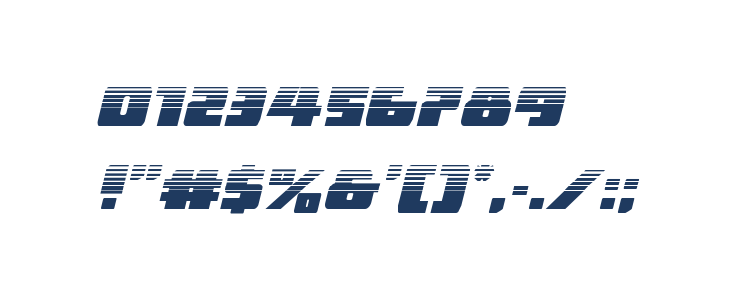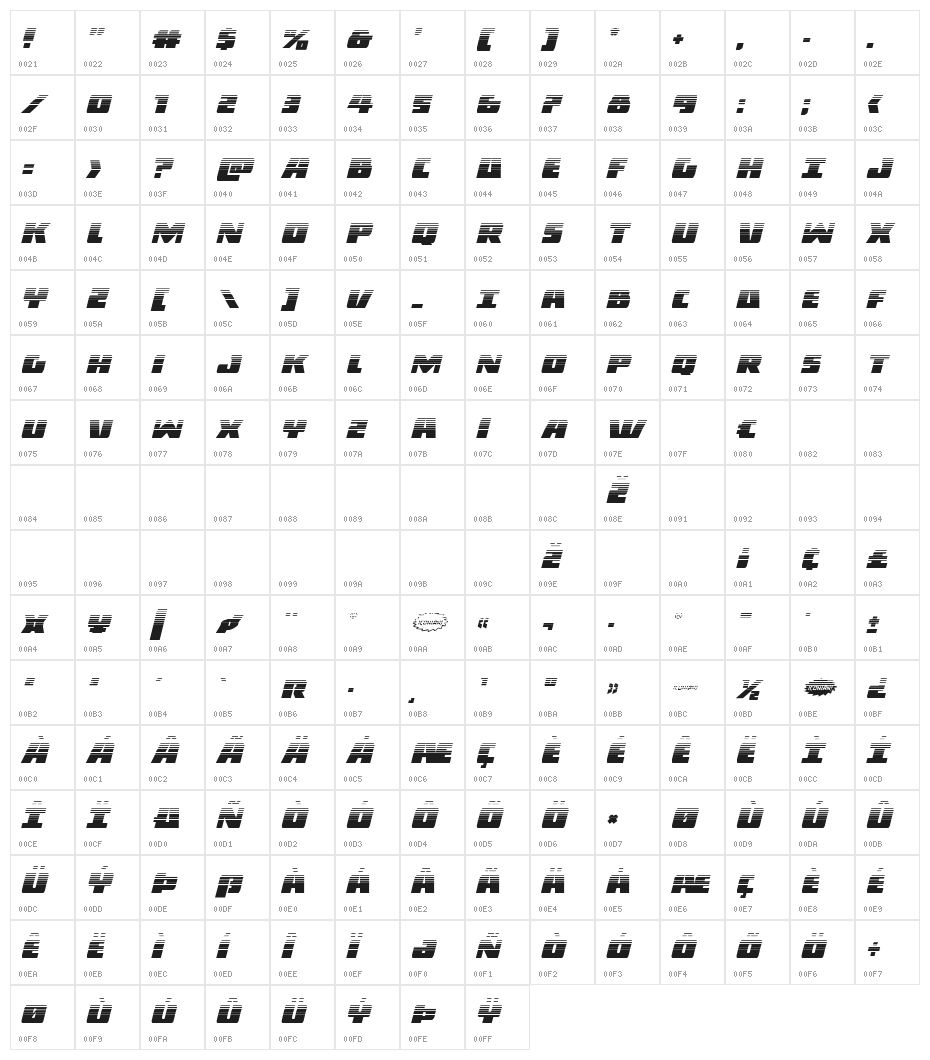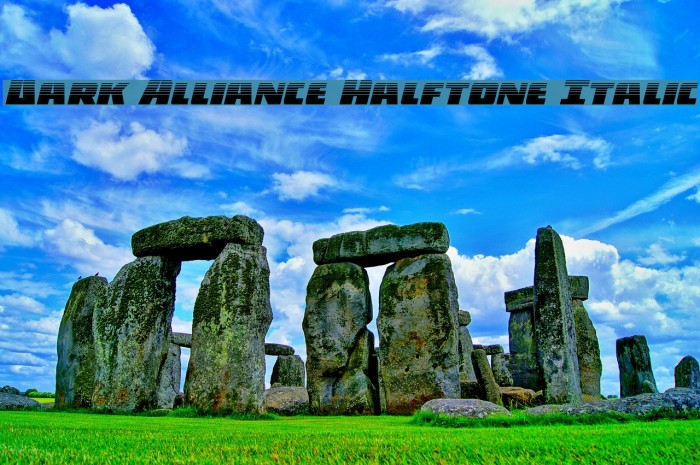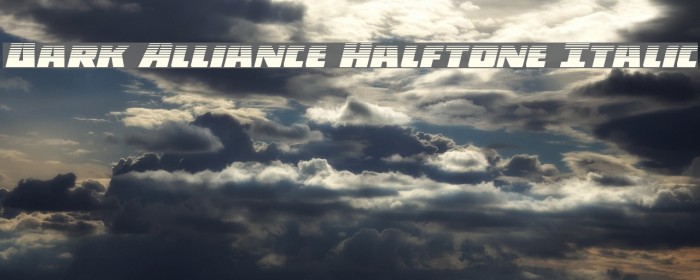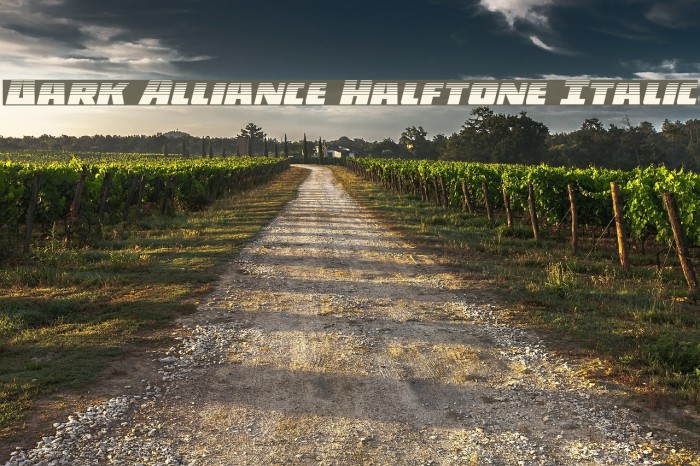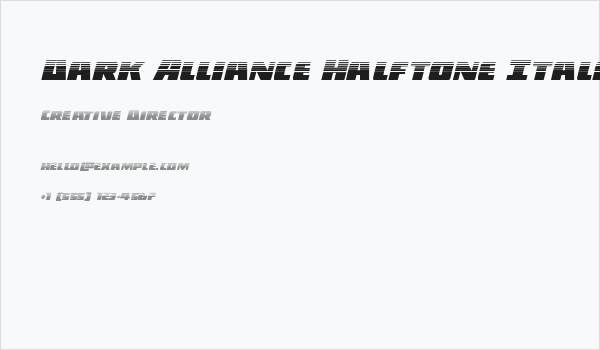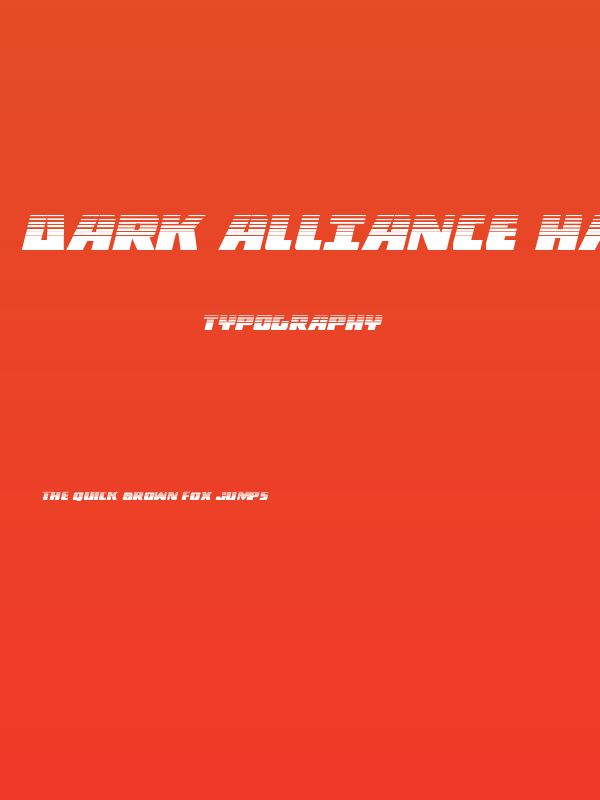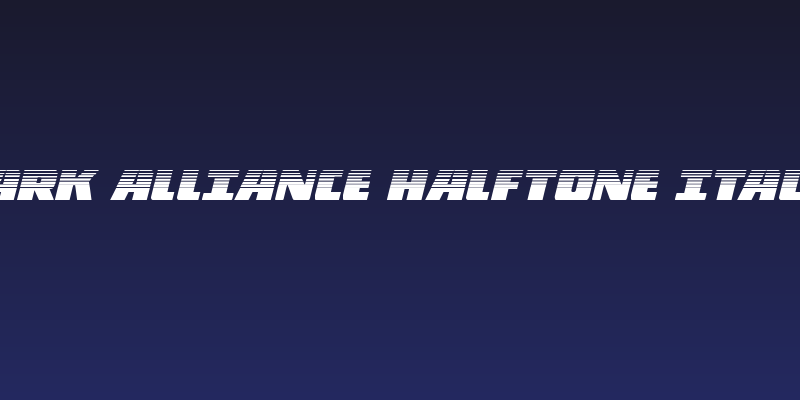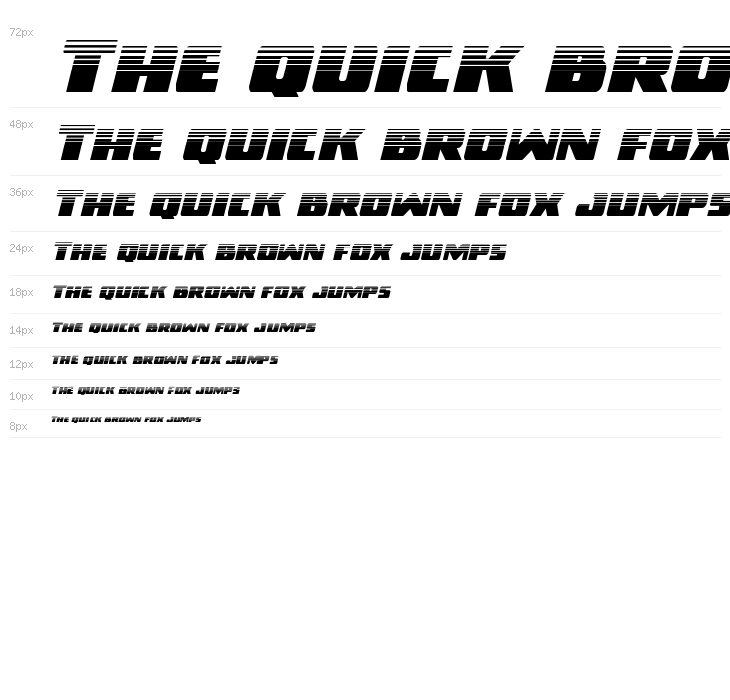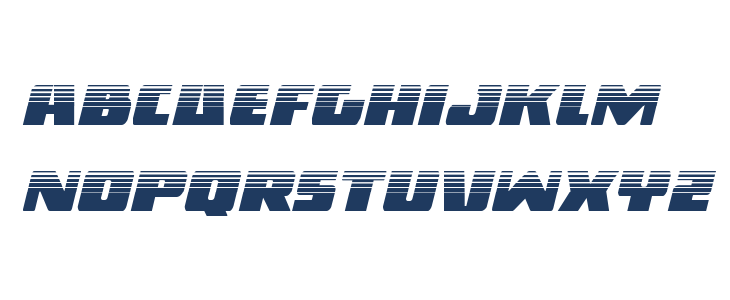
Dark Alliance Halftone Italic Font
Dark Alliance Halftone Italic Description
This font features a bold, italicized style with a distinct halftone effect, creating a dynamic and futuristic appearance. The uppercase letters are designed with a strong geometric structure, while the lowercase letters maintain a consistent style. The numbers and special characters follow the same bold and angular design, ensuring uniformity across all characters. The font's unique halftone pattern adds a sense of movement and energy, making it ideal for projects that require a modern and edgy look. Its boldness and italic slant give it a sense of urgency and impact, perfect for grabbing attention.
| Proposed Projects | Ideal for video game titles, movie posters, technology branding, and sports team logos. |